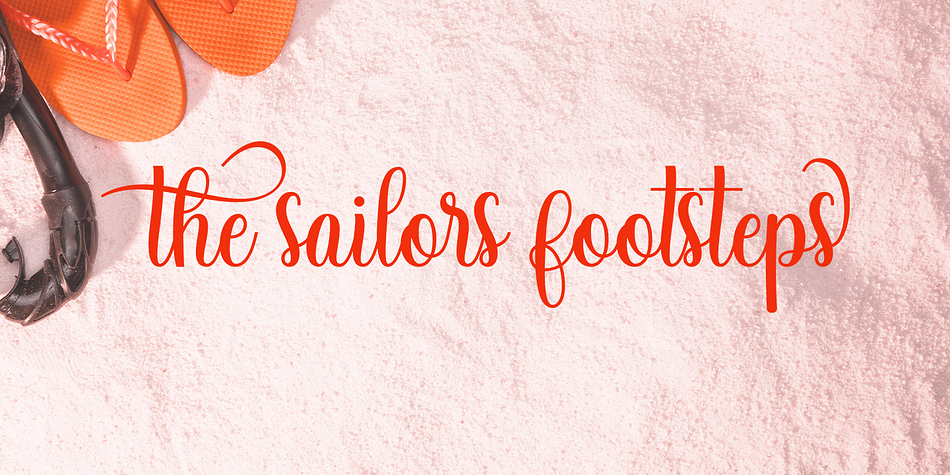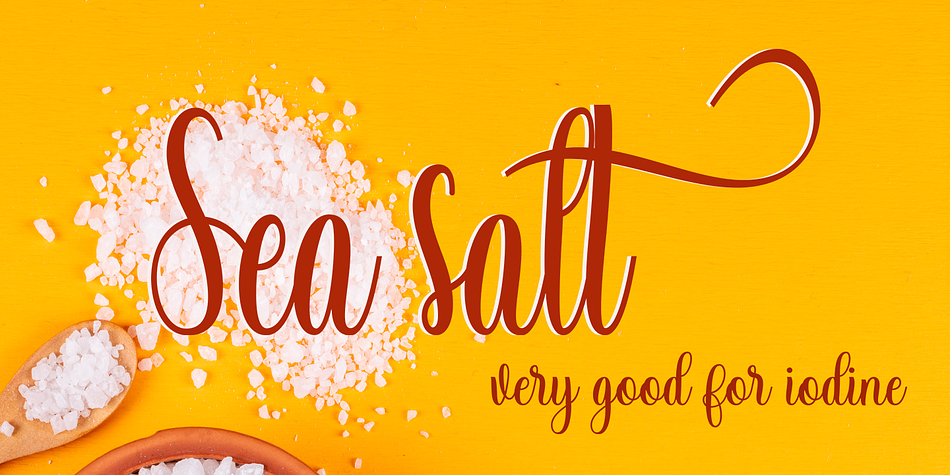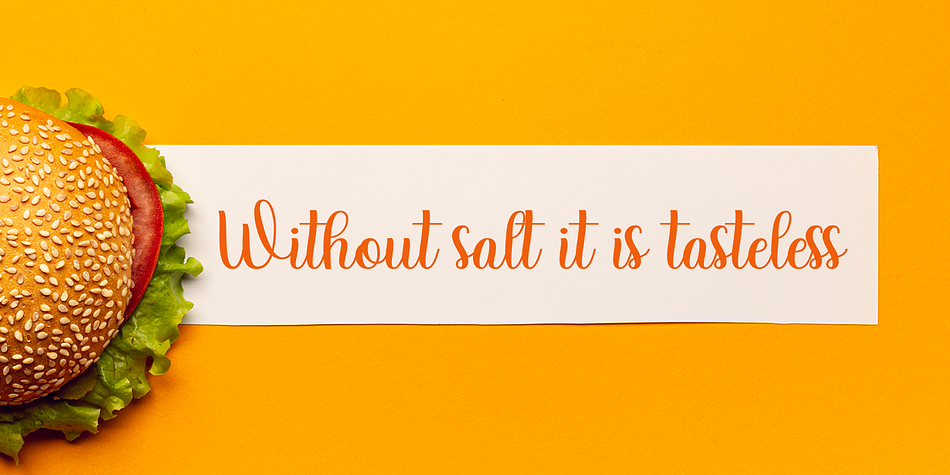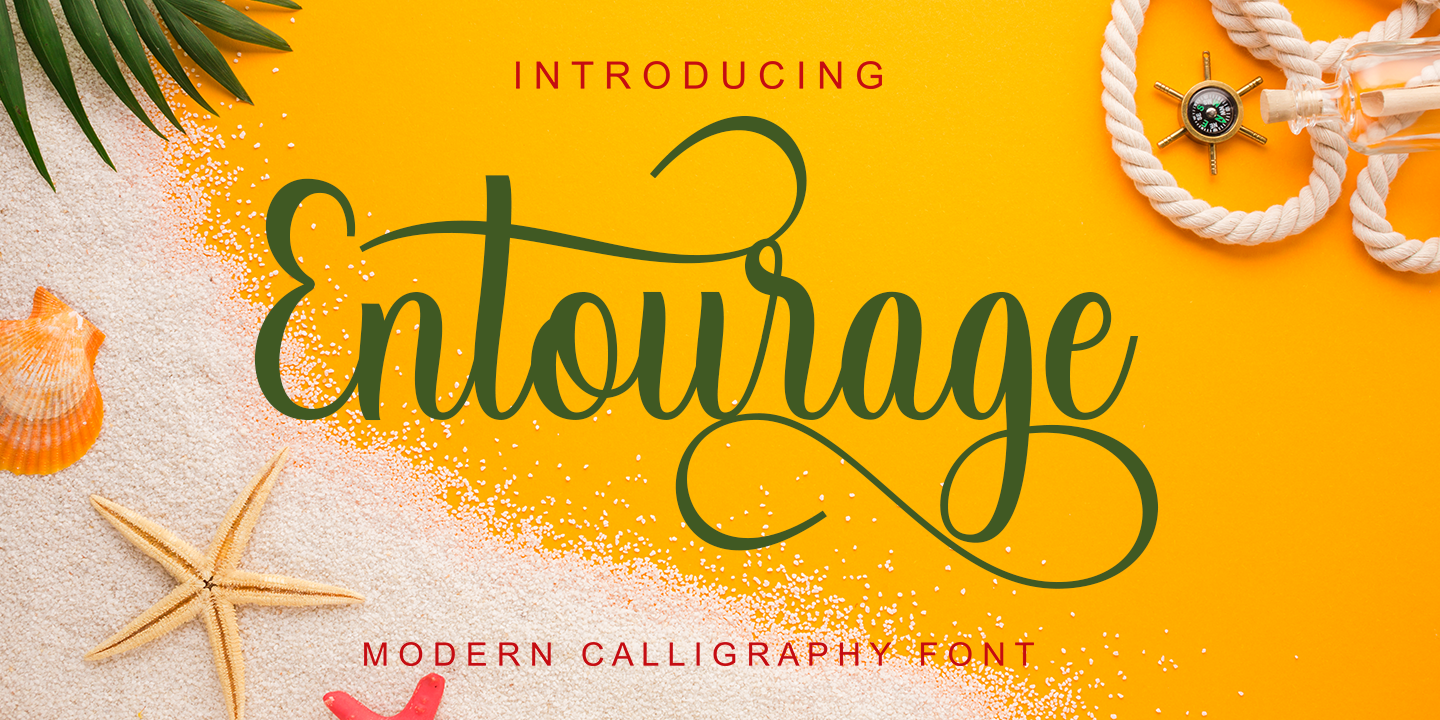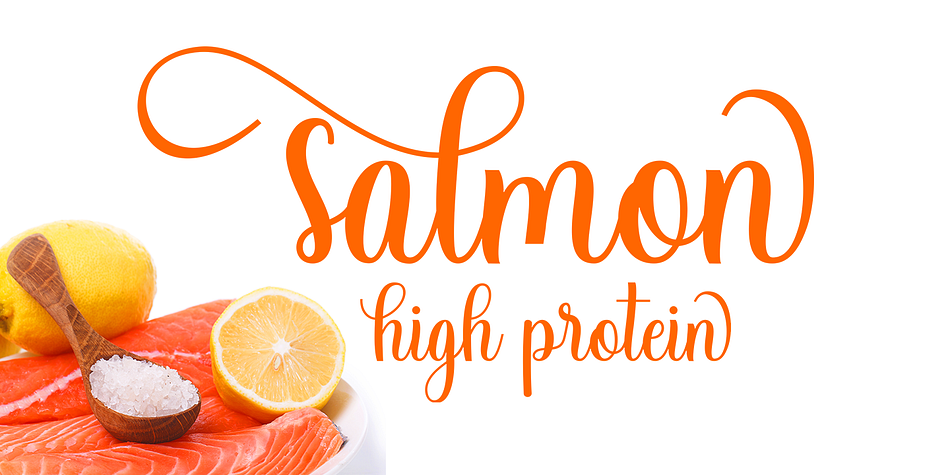
Entourage Script
Entourage Script is a brush script font family published by Gatype.
Entourage Script is modern script font, every single letters have been carefully crafted to make your text looks beautiful. With modern script style this font will perfect for many different project ex: quotes, blog header, poster, wedding, branding, logo, fashion, apparel, letter, invitation, stationery, etc.
Entourage Script including alternate glyph and beautiful swirl.